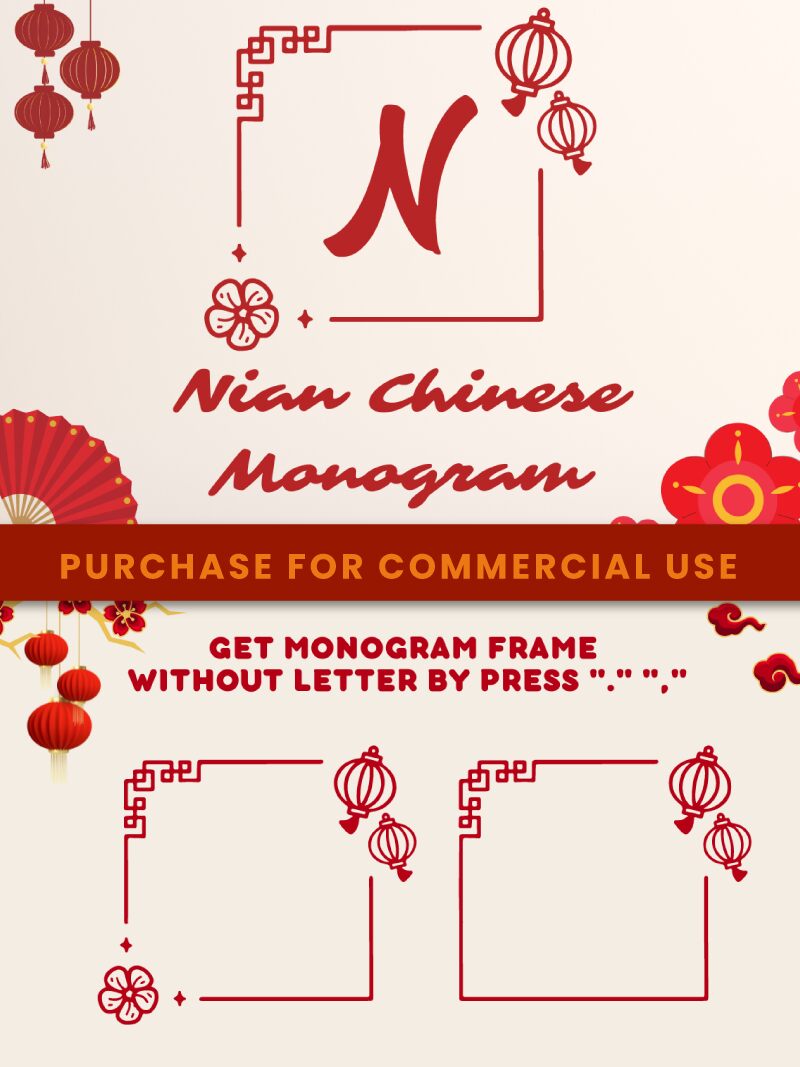
Nian Chinese Monogram Regular
Nian Chinese Monogram, crafted by Attype Studio, is a display font that exudes an artistic fusion of traditional aesthetics and modern design sensibilities. This decorative typeface captures the essence of Chinese calligraphy with its fluid and expressive strokes while maintaining readability. The intricate details and ornamental quality make it perfect for projects that require a touch of elegance and cultural flair.
The Nian Chinese Monogram stands out in its versatility, being an ideal choice for branding, festive greetings, editorial designs, and any creative work seeking to make a statement. With its distinctive style that balances decorative elements with functional design, this font invites designers to explore a realm where each character brings its own story and visual impact to the canvas.